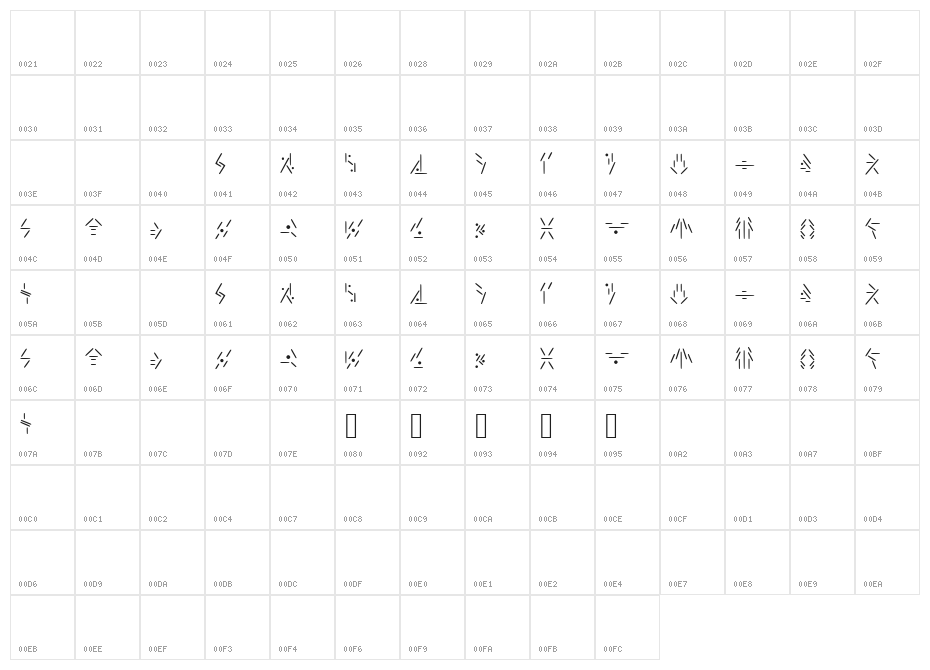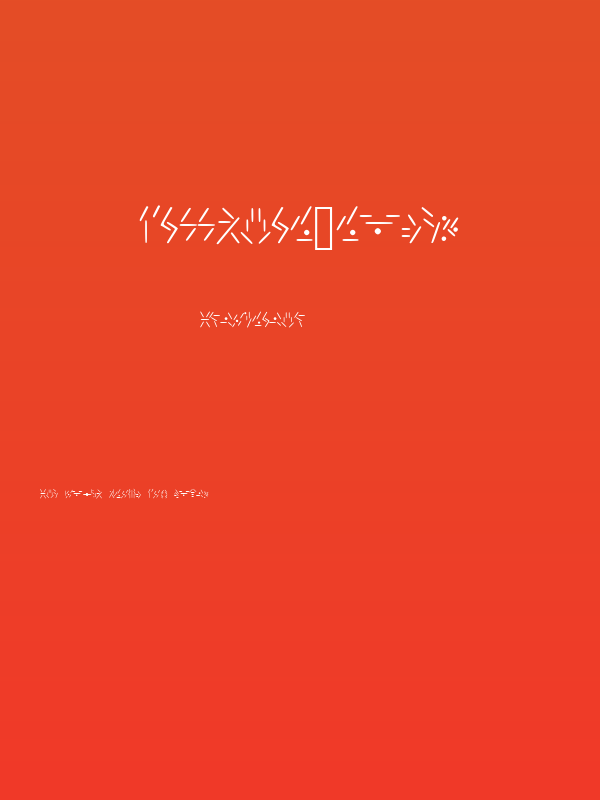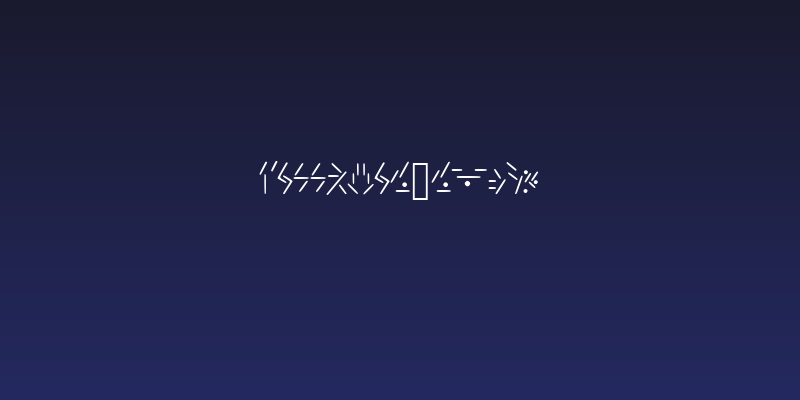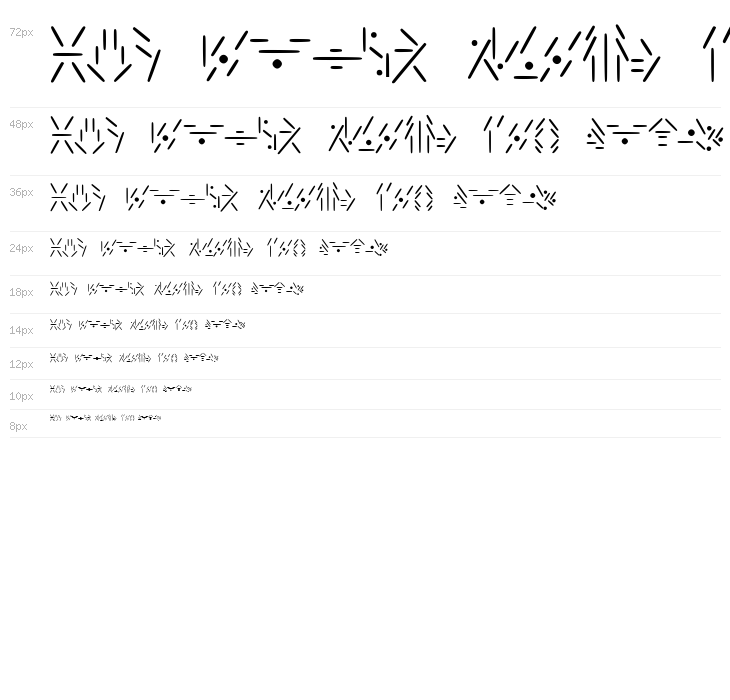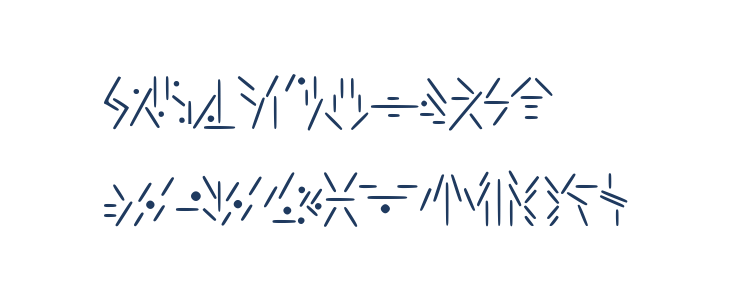
Fallkhar_Runes Font
Fallkhar_Runes Description
This design features a series of intricate symbols and lines that resemble ancient runes or coded scripts. The characters are composed of geometric shapes, including lines, dots, and angles, creating a mysterious and cryptic appearance. The style is highly decorative, with each symbol appearing unique and distinct, suggesting a language or code that is not immediately recognizable. The overall aesthetic is both enigmatic and visually striking, making it suitable for projects that require a sense of mystery or ancient allure.
| Use Case | Logos, Themed decorations, Game design |
| Proposed Projects | Ideal for fantasy-themed designs, escape room puzzles, or any project requiring a mysterious, ancient script aesthetic. |